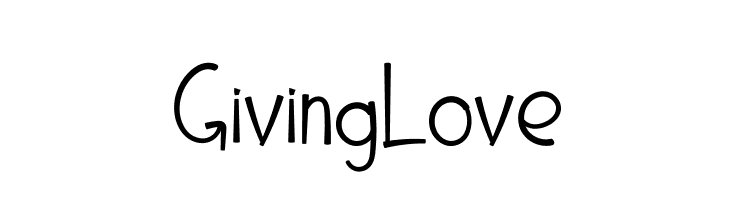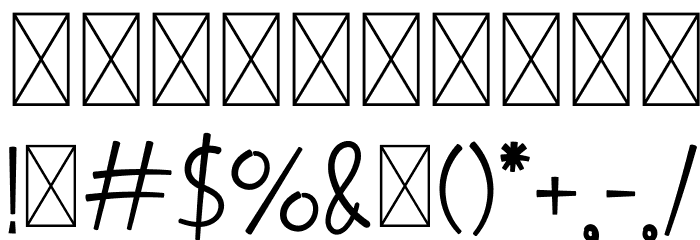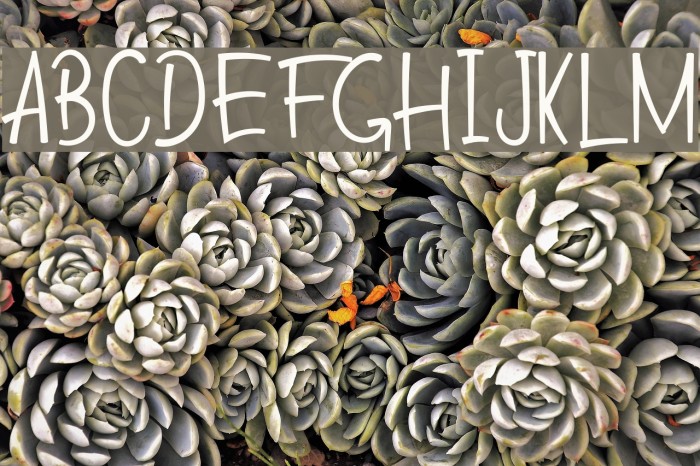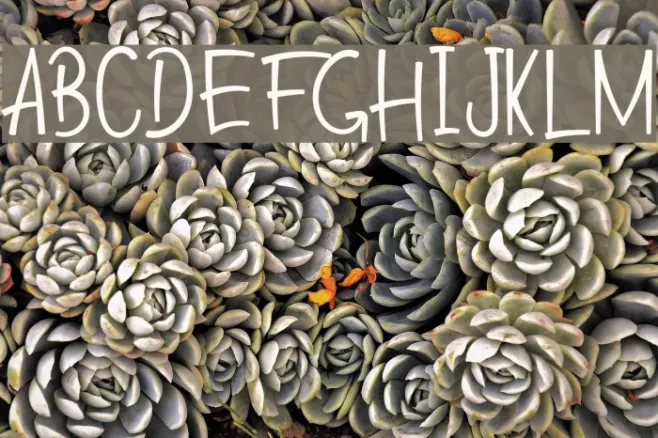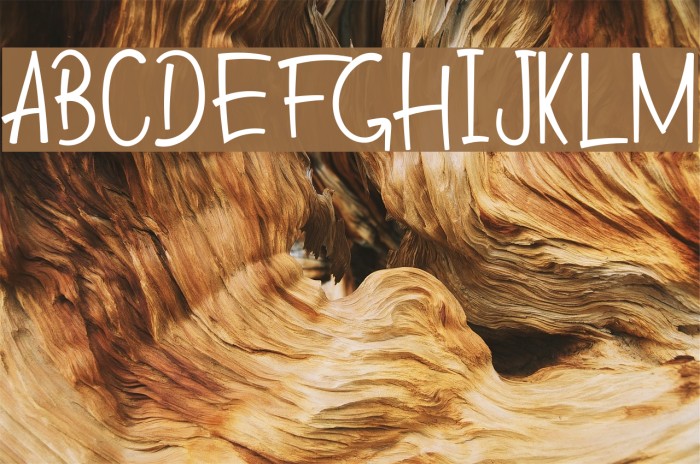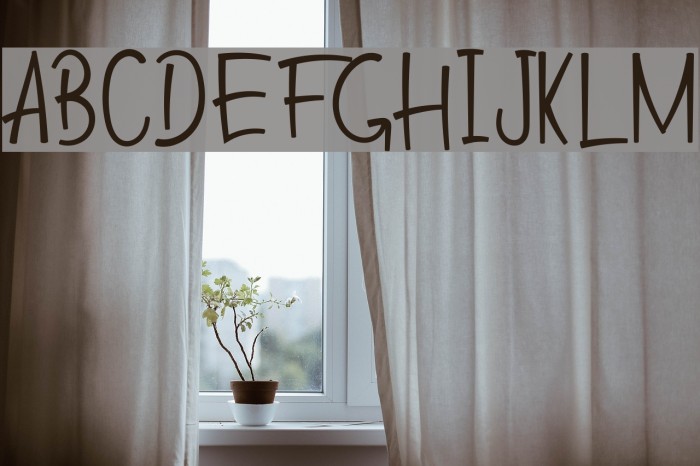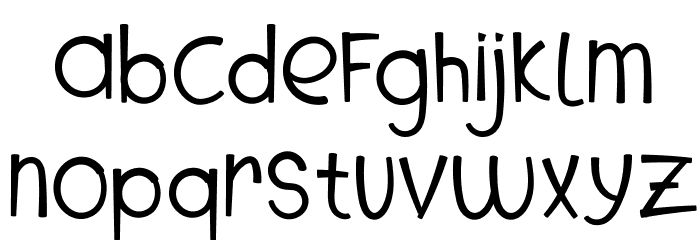
Giving Love Font
This playful and whimsical font features a hand-drawn style with irregular, slightly wavy lines that give it a casual and friendly appearance. The uppercase letters are tall and narrow, while the lowercase letters maintain a consistent height, adding to the font's quirky charm. The characters have a uniform stroke width, contributing to a cohesive look across the alphabet. The numerals and special characters follow the same playful design, making this font suitable for creative and informal projects. Its unique style is perfect for adding a personal touch to any design.
A playful, hand-drawn font with a whimsical and casual style.
• Proposed Projects: Ideal for greeting cards, children's books, playful branding, and DIY projects.